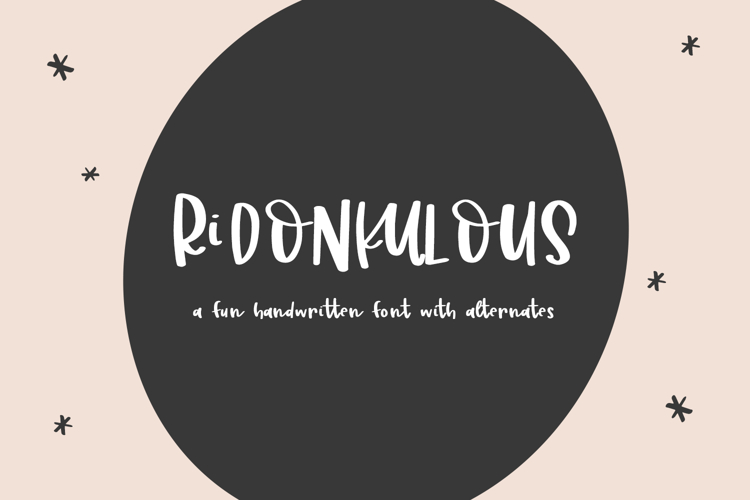
Ridonkulous Sans is a whimsical, silly sans font with clean lines and playful characters. Use in all caps, all lowercase, or even mixed case to full customize the handwritten, kooky look of your project.
Ridonkulous is best for:
- logos + branding for kid-centric brands
- design items like shirts, coffee mugs, & more
- Cricut and Silhouette projects
- other crafting projects
- school or classroom projects
Ridonkulous includes:
- 26 alternate caps characters
- 3 ligatures - lf, ll, tt